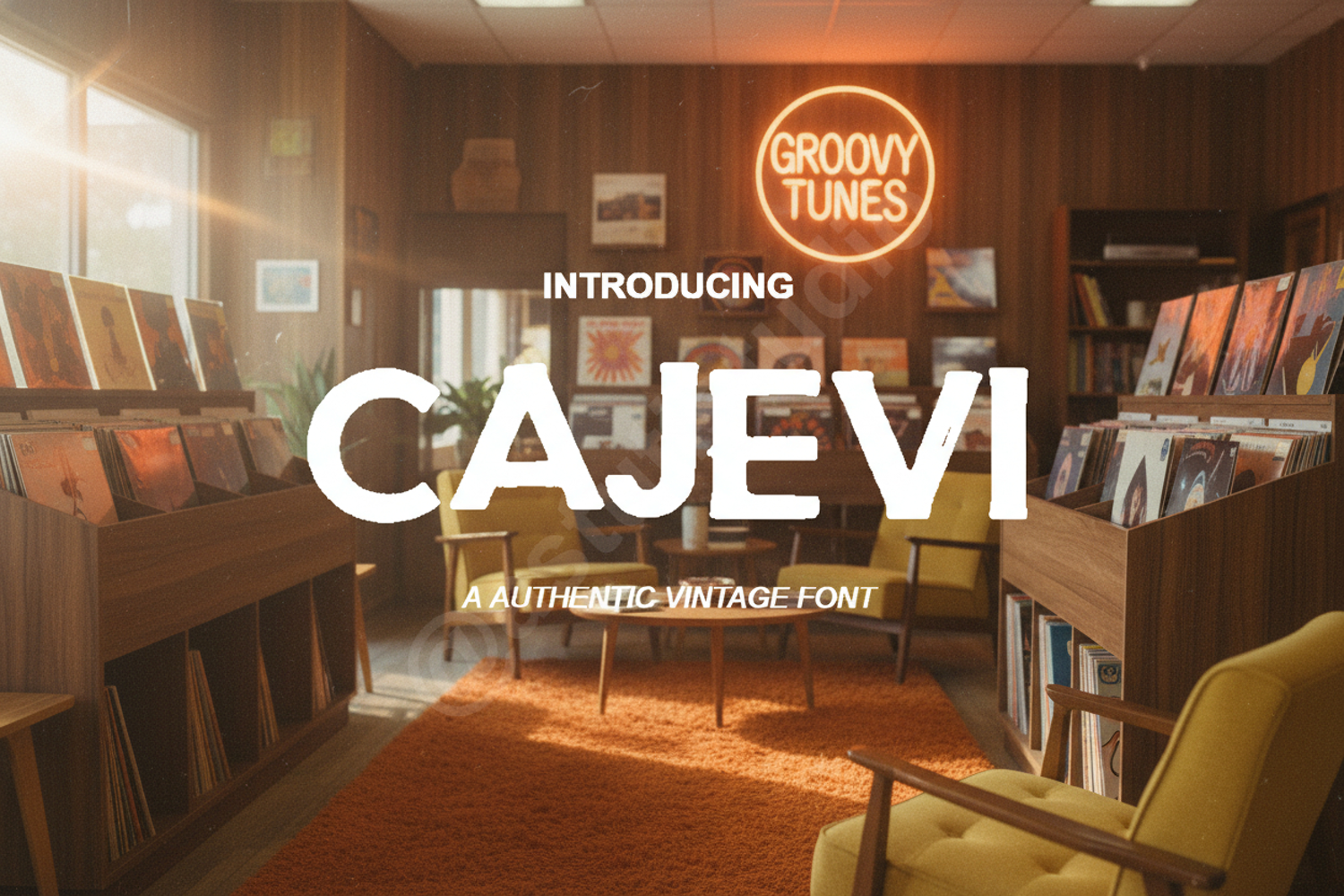
Cajevi - Modern Elegant Serif Typeface
Cajevi
Elevate your creative projects with Cajevi, a premium serif typeface designed for those who seek a perfect balance between classic elegance and modern minimalism. With its refined strokes and sophisticated silhouette, Cajevi brings a touch of luxury to any design layout, ensuring your work stands out with professional polish.
- Full set of uppercase and lowercase characters
- Comprehensive numbers and punctuation
- Multilingual support for diverse design needs
- Luxury Branding: Create high-end visual identities and memorable logos.
- Editorial Design: Perfect for sophisticated magazine headers and stylish layouts.
- Wedding Stationery: Add a timeless touch to invitations, save-the-dates, and menus.
- Social Media: Design eye-catching quotes and high-fashion promotional graphics.
- Product Packaging: Ideal for cosmetic, lifestyle, and premium boutique brands.